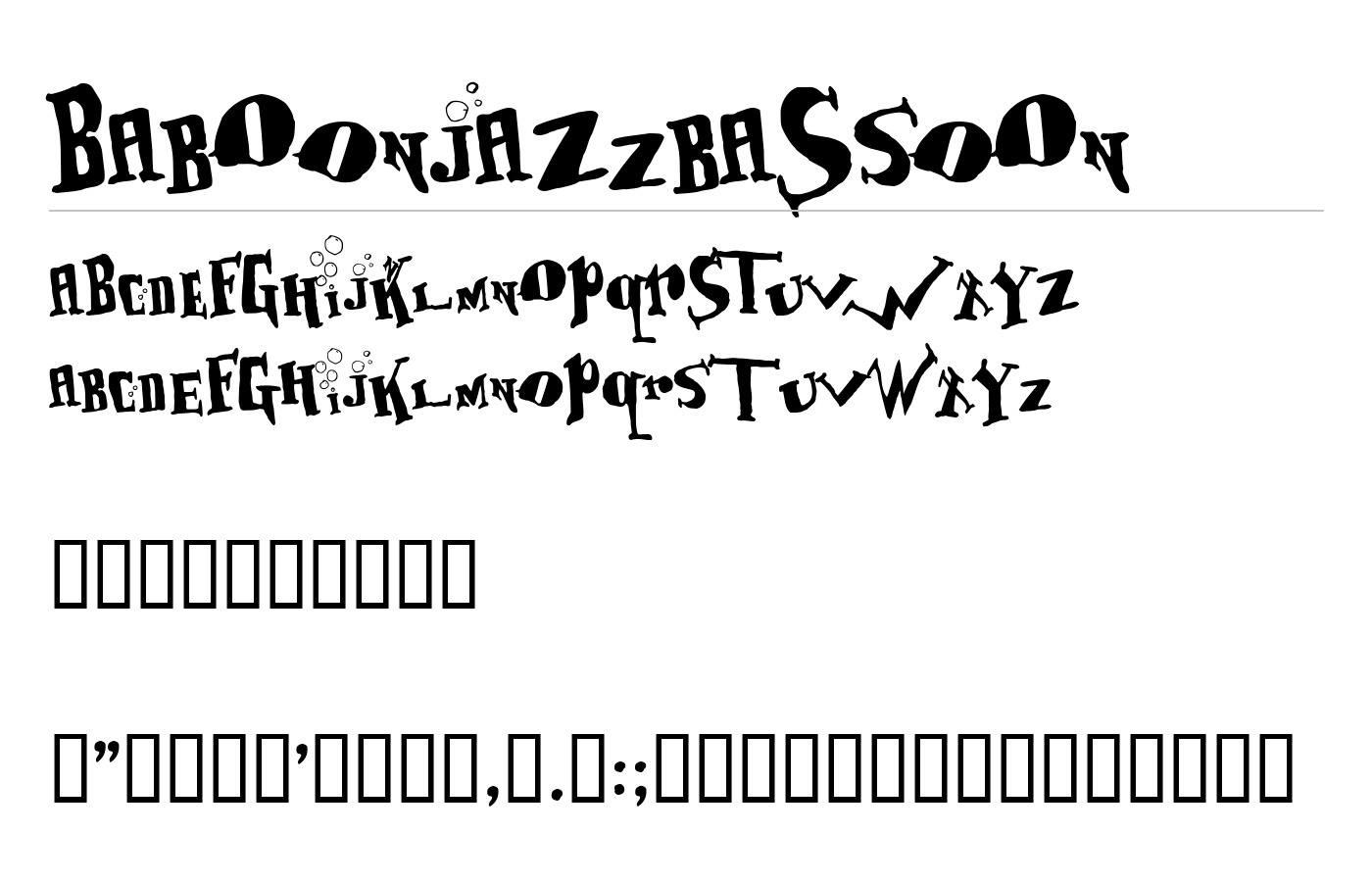
BabOonjaZzbaSsoOn is a playful and quirky display font with an irregular, hand-drawn feel. Its bold weight and uneven letterforms, combined with quirky details like bubbly dots and erratic strokes, make it perfect for fun, creative projects that need a lively and whimsical touch. This font works best in headlines, posters, or branding that aims to stand out with a unique and informal vibe.
BabOonjaZzbaSsoOn Font
About BabOonjaZzbaSsoOn Font